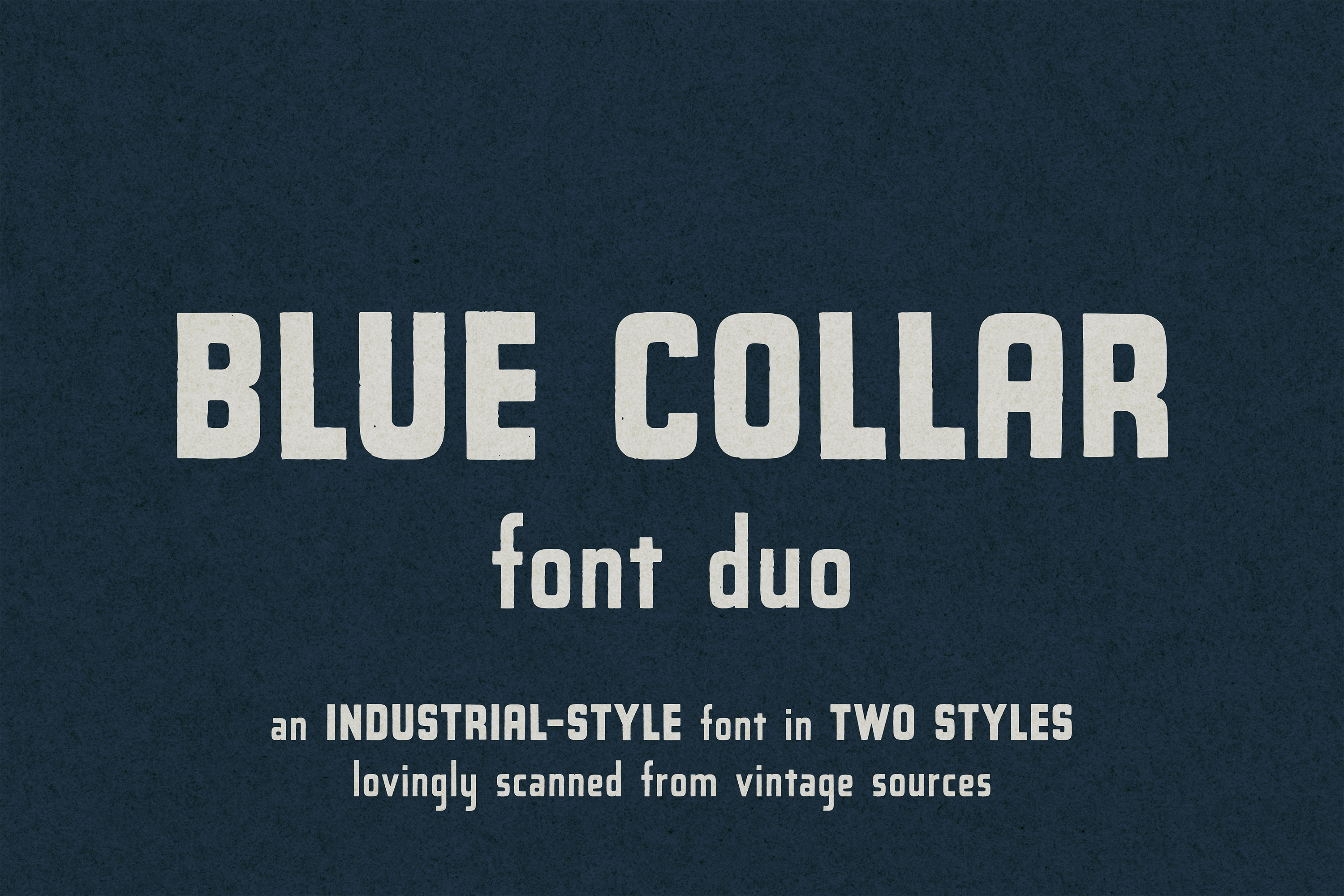
Blue Collar Font Duo
Blue Collar is an industrial-style font in two styles lovingly scanned from vintage sources, with several new characters added to round out the selection. Pair all-caps words with all-lowercase words for emphasis, or mix and match in sentence case for a uniquely quirky look. Perfect for packaging, merch design, logos and branding.